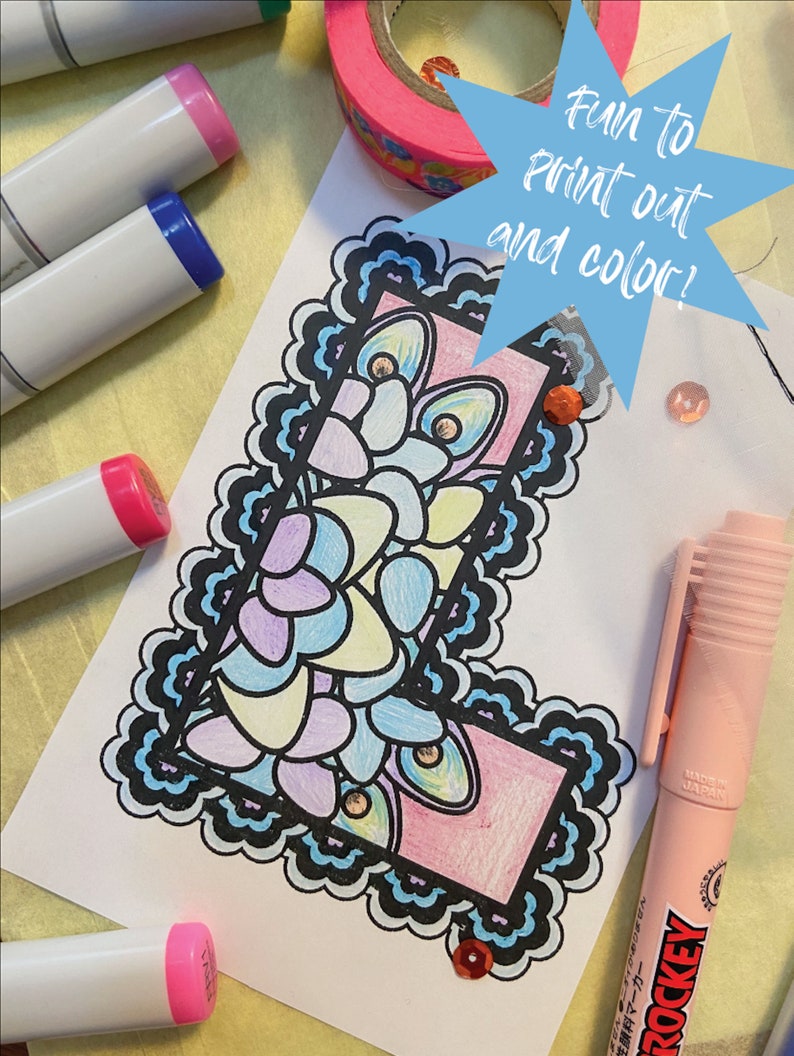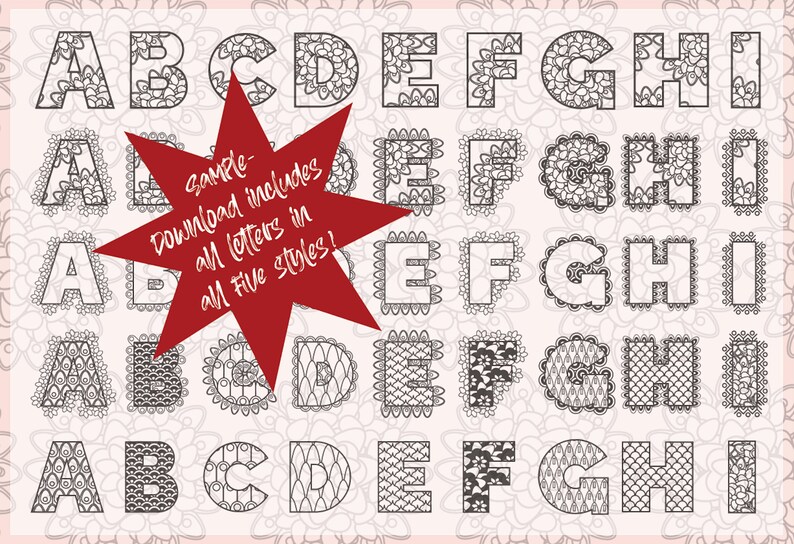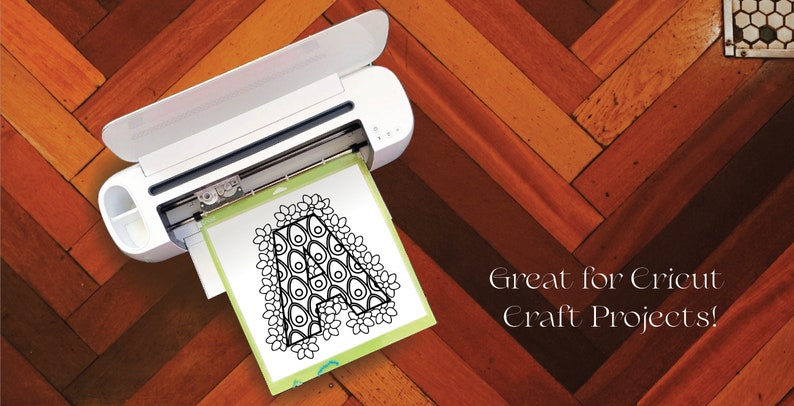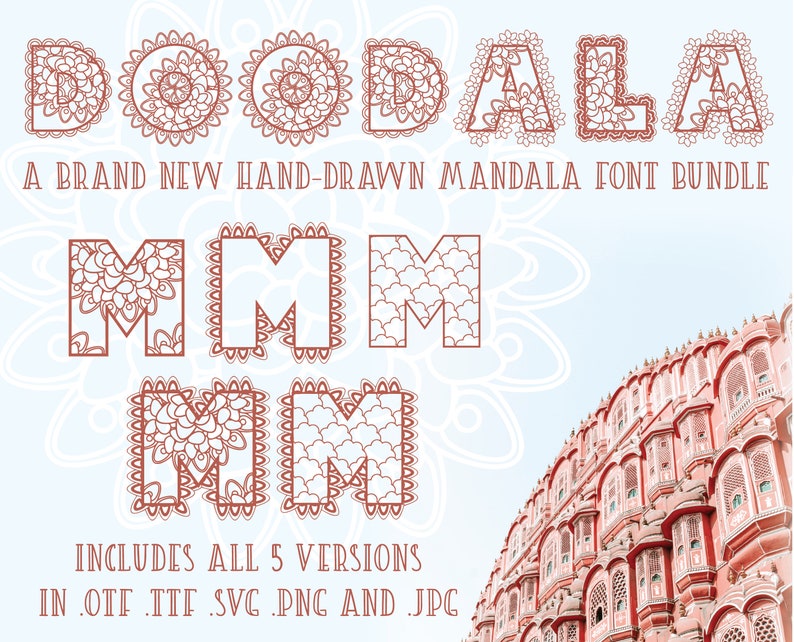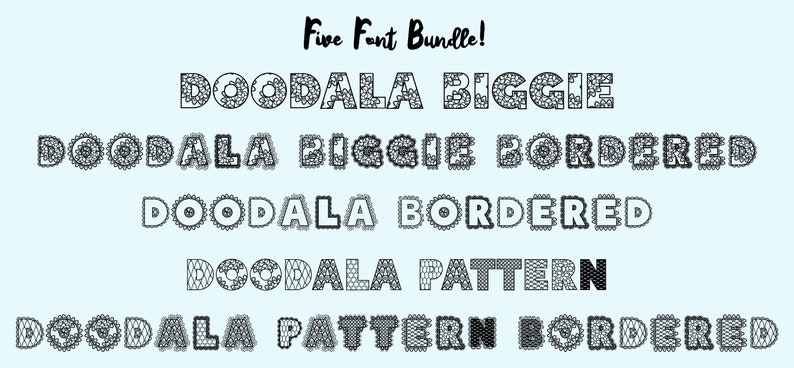
Doodala - A Hand-Drawn Mandala Font Bundle - 5 Styles! - .otf .ttf .svg .png .jpg - Perfect for crafters, Cricut, & Commercial License
Introducing Doodala, a hand-drawn mandala font bundle! Great for bringing the beauty of mandalas into your artwork and creative crafting projects. Perfect for creating t-shirts, greeting cards, pillows, POD products or home crafts for kids and adults alike.
These letters are great for quickly and easily creating intricate monogram designs, or even print out a letter or two and have fun coloring them in!